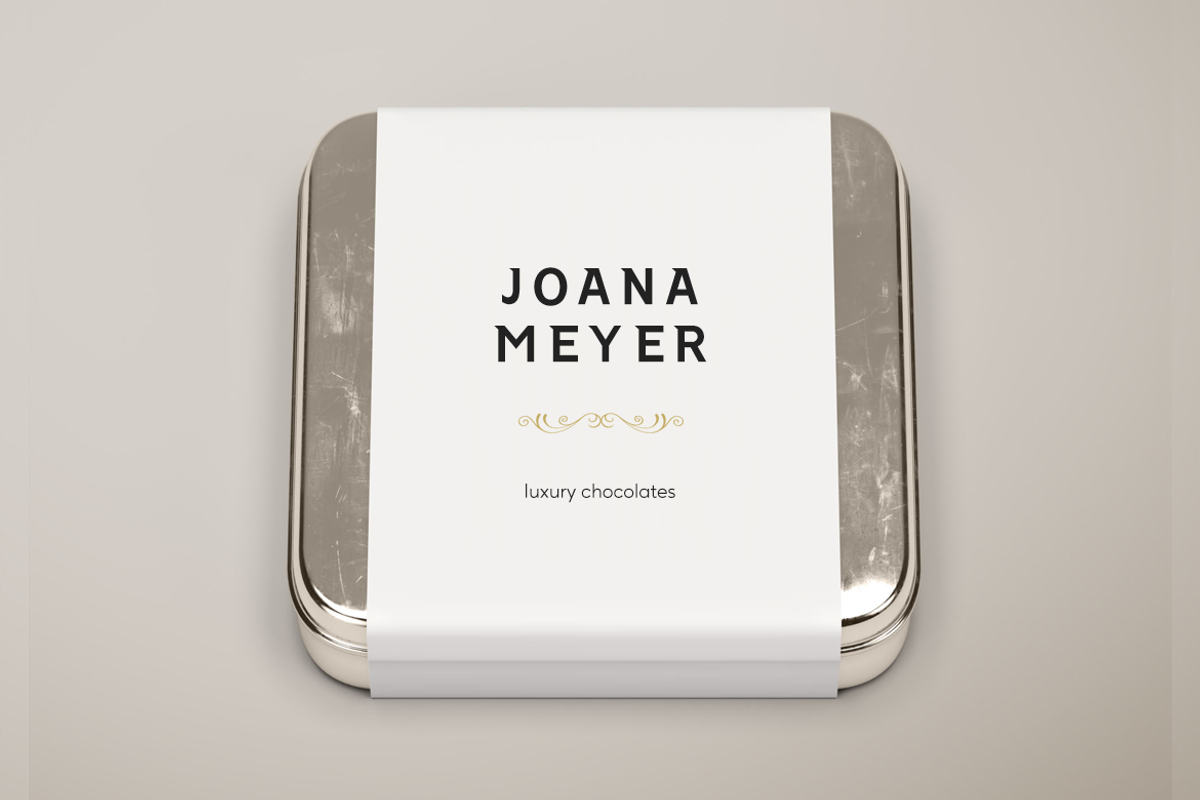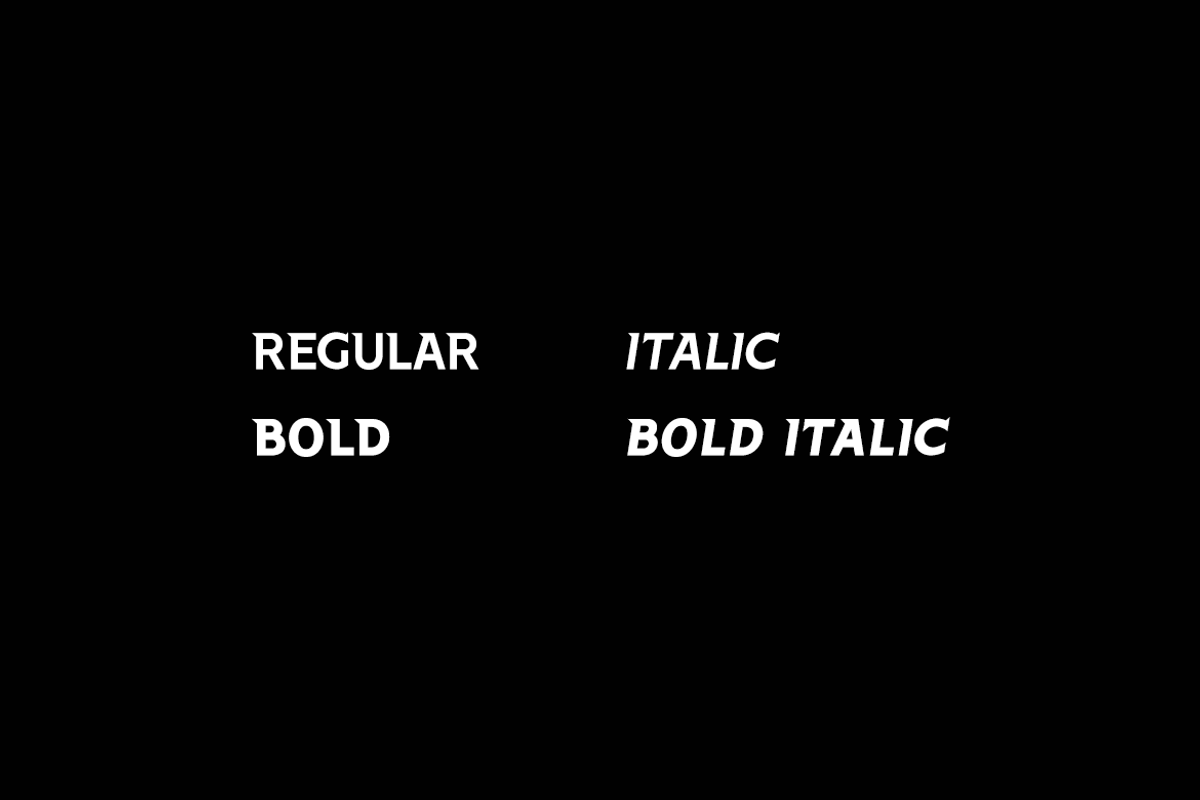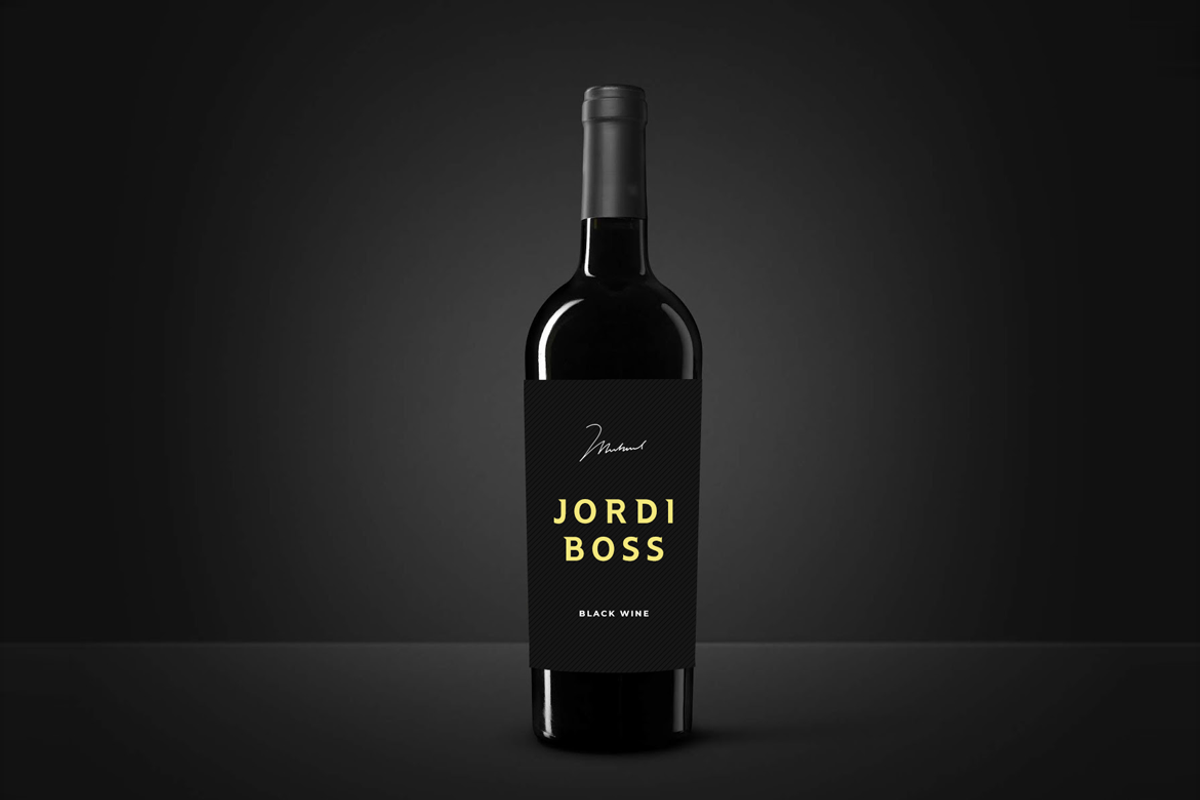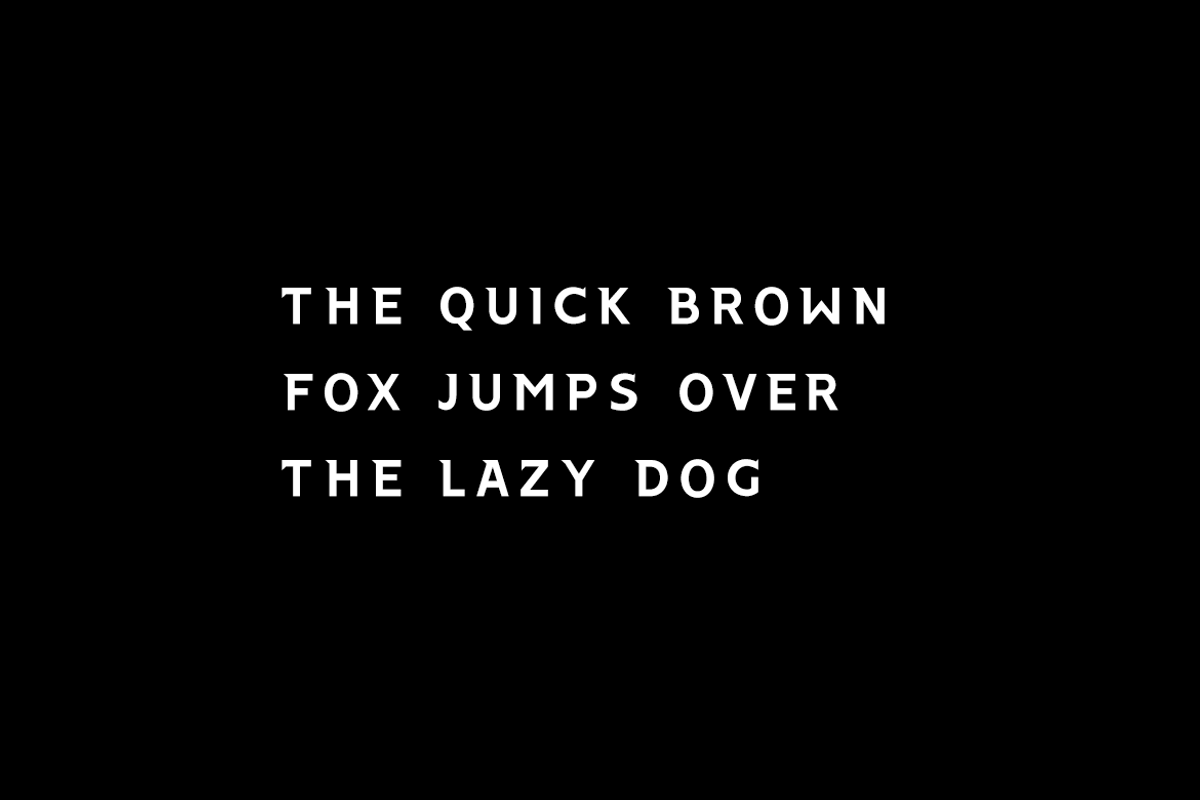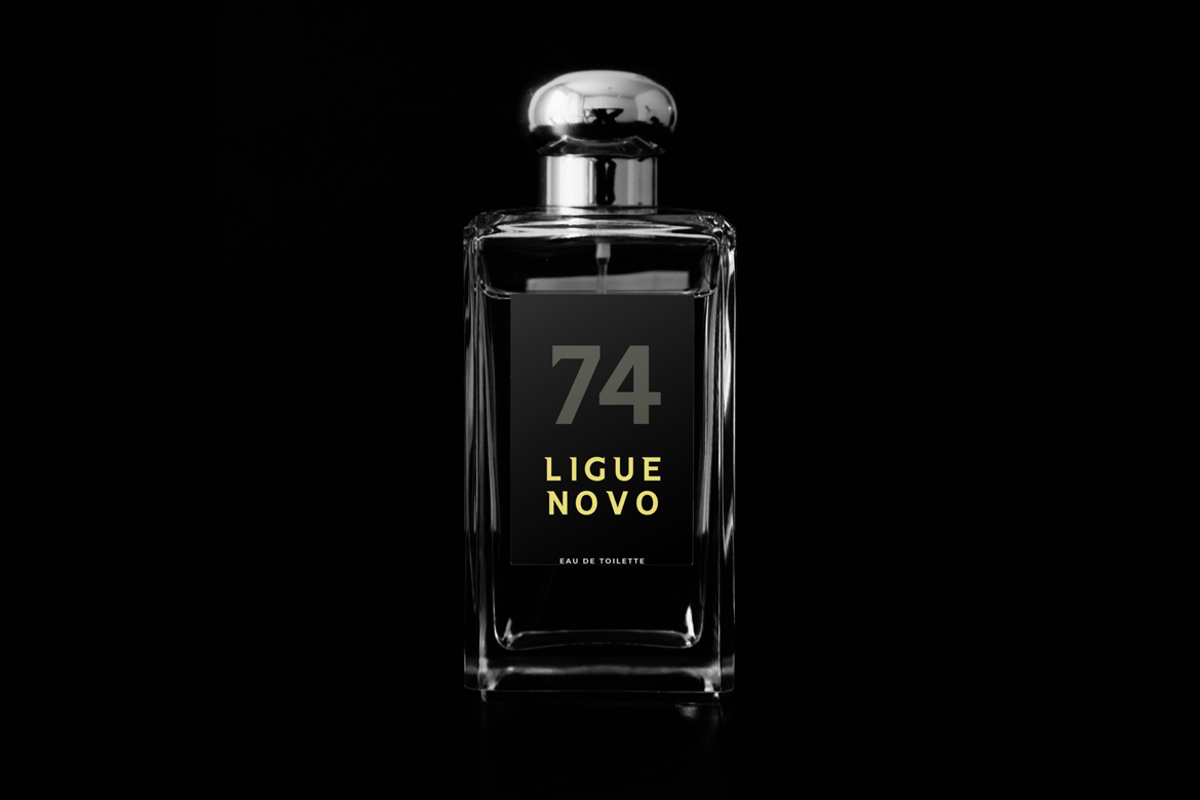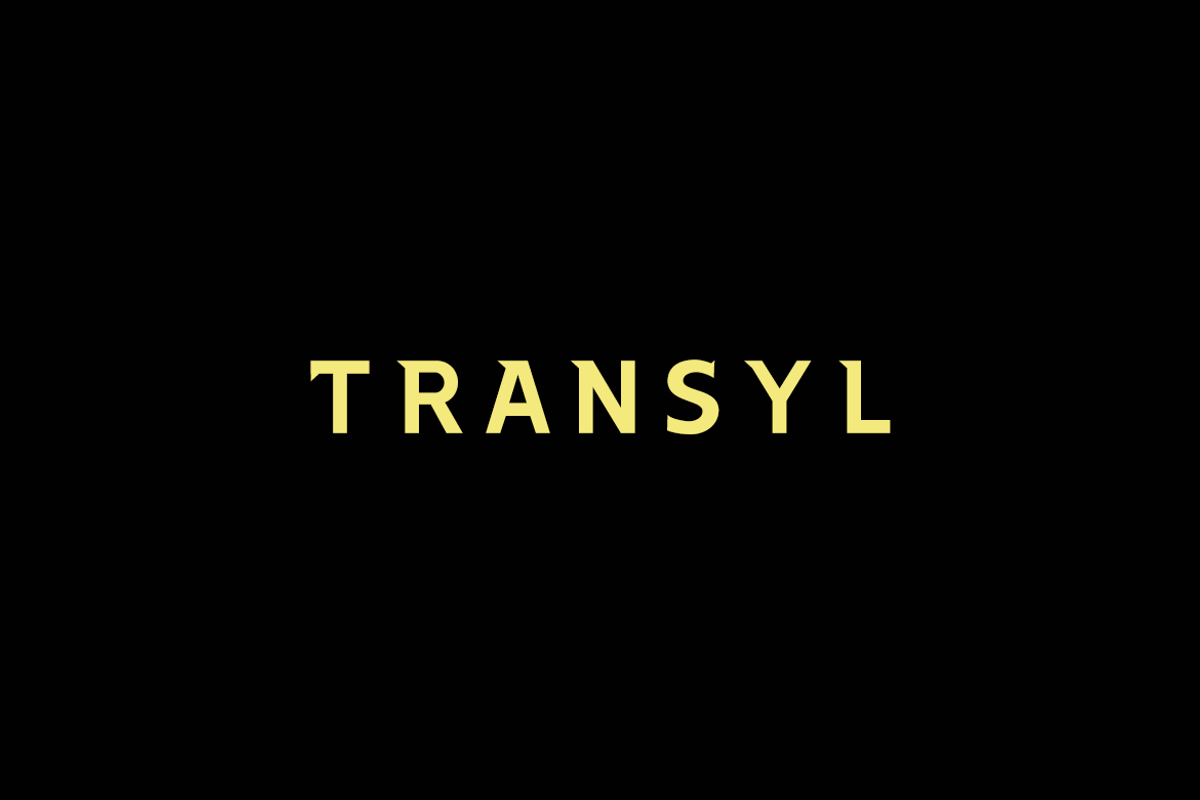
TRANSYL - Elegant Display Typeface
TRANSYL, a unique all-caps display typeface inspired from elegant medieval design patterns when blended with modernism. This typeface is perfect for headlines, big text, branding, logotypes & display usage. This font is also perfect for creating outstanding logos, promotional content and marketing graphics that can really grab attention from your visitors. Please see the examples shown above to get an idea about the capability of this typeface.